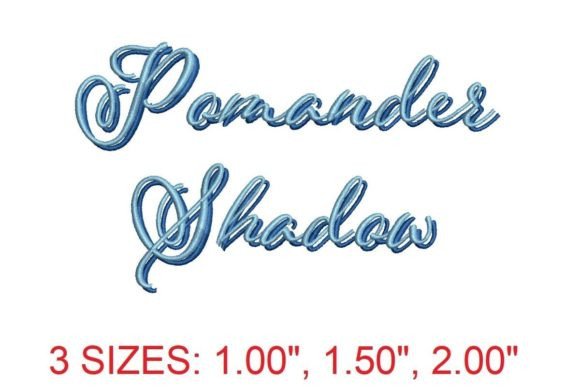
Pomander Shadow Embroidery Font
As a designer with years of experience in machine embroidery, I’ve seen countless fonts and lettering styles come and go. But the Pomander Shadow Embroidery Font stands out for its elegance and versatility. It’s not just another set of letters—it’s a design that feels intentional, refined, and ready for real-world use.
The First Impression: Sophistication Meets Function
When I first opened the Pomander Shadow Embroidery Font, I was struck by how it balances style with practicality. The shadow effect adds depth without overwhelming the design, making it ideal for projects that need a touch of class. The lettering has a timeless feel, reminiscent of vintage typography but updated for modern use. It’s perfect for anything from personalized gifts to commercial embroidery.
The layout is clean, with each character clearly defined. The detail level is high enough to look impressive on fabric but not so intricate that it becomes impractical for most machines. This makes it a great choice for both hobbyists and professionals looking for a reliable font that works across multiple applications.
Real-World Use: Where It Shines
I tested the Pomander Shadow Embroidery Font on a custom tote bag design for a client who wanted something unique for their back-to-school line. The result was stunning. The shadow effect gave the design a subtle dimension that caught the eye without being too flashy. It worked well on a light-colored cotton tote, where the contrast between the thread and fabric was just right.
This font also excels on sweatshirts and t-shirts. The stitch density is manageable, and the shadow detail doesn’t get lost in the fabric texture. I found it particularly effective when used as an applique design, where the shadow adds visual interest without complicating the stitching process.
For baby items, like onesies or blankets, the font’s softness and clarity make it a safe choice. It doesn’t have sharp edges that could be uncomfortable for sensitive skin, and the details remain visible even on thin fabrics.
Where to Be Cautious: Practical Considerations
While the Pomander Shadow Embroidery Font is versatile, there are some situations where it may not perform as well. On small hoop sizes, the design can feel cramped, especially if you’re trying to fit a large amount of text. It’s best to check the file dimensions before committing to a project.
Textured fabrics, such as knits or stretchy materials, can sometimes cause the shadow effect to appear less defined. I recommend testing the design on a similar fabric before using it on a final product. Thin or dark fabrics may also require adjustments in thread color to ensure visibility.
Curved surfaces like caps or hats can be tricky. The shadow effect might not translate well on rounded edges, so it’s worth considering alternative placements or simplifying the design for these types of projects.
Impact on Visual Appeal and Customer Perception
The Pomander Shadow Embroidery Font elevates the overall look of any embroidered item. Its subtle depth adds a layer of sophistication that can make a handmade product stand out in a crowded market. For Etsy sellers or small shop owners, this is a valuable asset—customers often notice and appreciate the extra effort in design.
Stitching clarity is another strong point. The font maintains its shape and definition even at smaller sizes, which is crucial for personalized gifts or custom apparel. This consistency helps build trust with customers, who expect quality and precision in every finished product.
From a branding perspective, the font offers a professional look that aligns with high-quality craftsmanship. It’s a great choice for boutique products or commercial embroidery projects where presentation matters.
Design Notes for Embroidery Professionals
If you’re planning to use the Pomander Shadow Embroidery Font in your work, here are a few key tips:
Final Thoughts: A Smart Choice for Creative Entrepreneurs
The Pomander Shadow Embroidery Font is more than just a pretty design—it’s a tool that can enhance your creative workflow and improve the quality of your finished products. Whether you’re an Etsy seller, a craft business owner, or a hobbyist, this font offers value in both aesthetics and functionality.
Its adaptability across various projects, from back-to-school items to holiday gifts, makes it a reliable addition to any embroidery library. With careful consideration and proper execution, it can help elevate your brand and satisfy your customers’ expectations for quality and style.